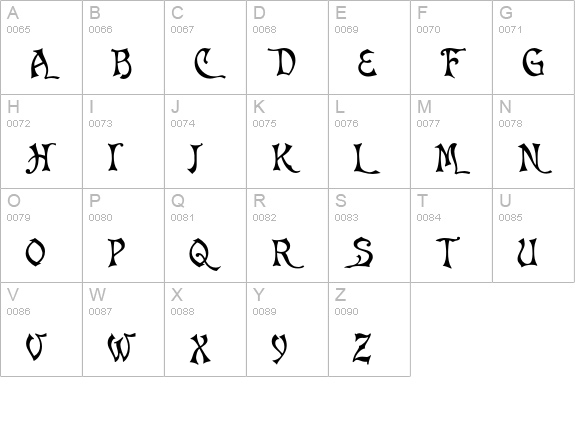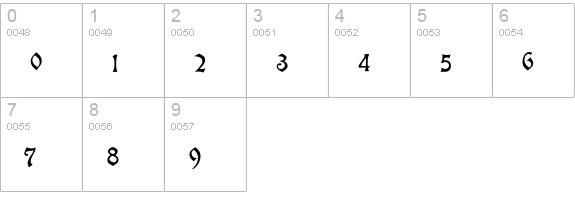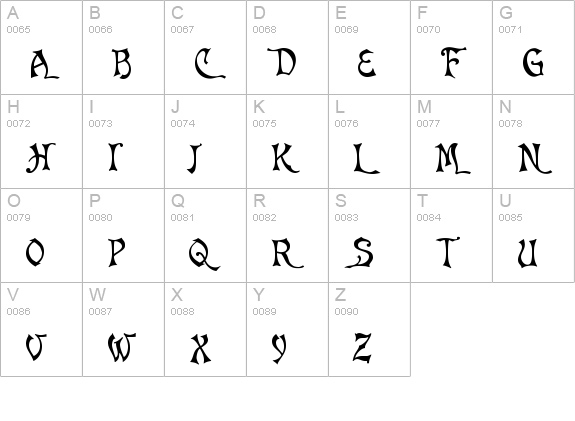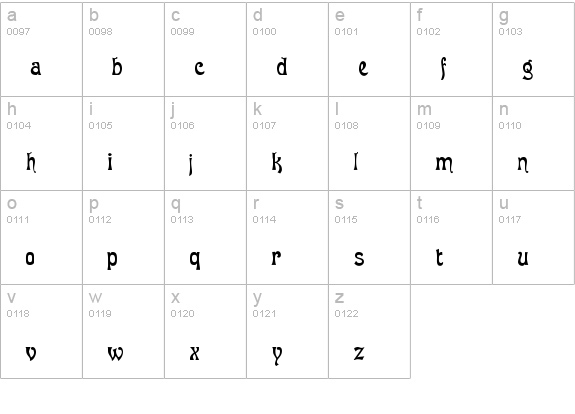
Asphodel Font Details
Experience elegance and sophistication with the Asphodel font, a timeless typeface that exudes charm and grace in every letter. Perfect for adding a touch of class to your designs, this font features delicate serifs and graceful curves that make it truly stand out. What makes the Asphodel font even more enticing is that it is free to download at FontsMarket.com. Yes, you read that right - this stunning font can be yours at no cost, allowing you to elevate your projects without breaking the bank. Whether you're working on invitations, branding materials, or anything in between, Asphodel is sure to add a touch of refinement to your work. Download it today and discover the beauty of this exquisite font for yourself.